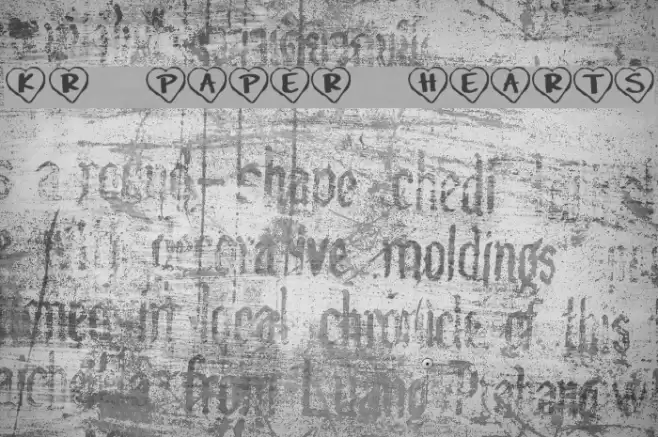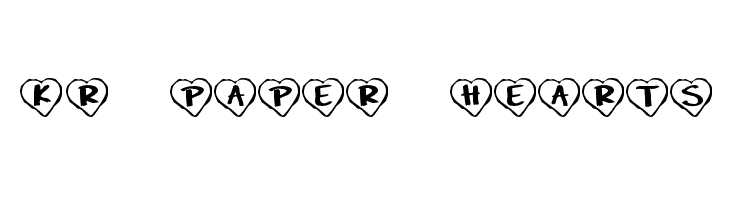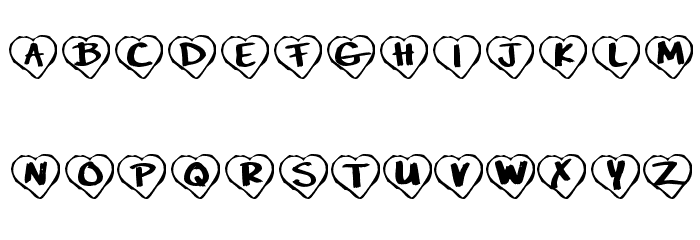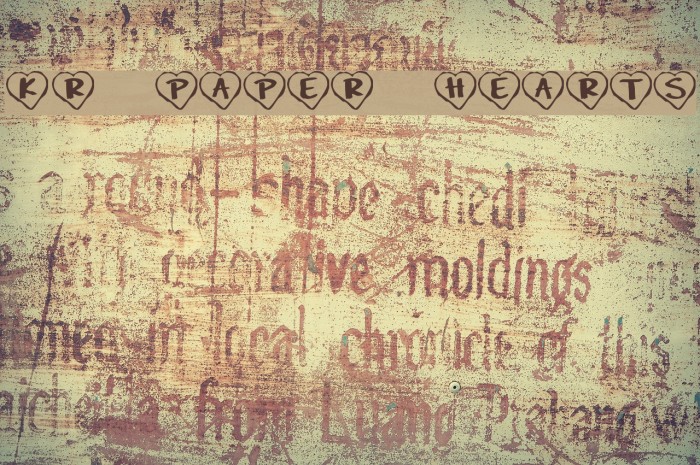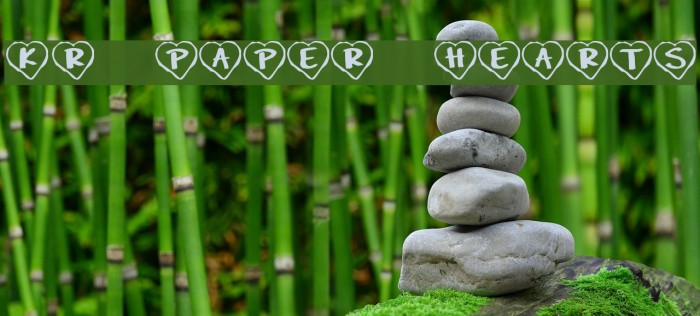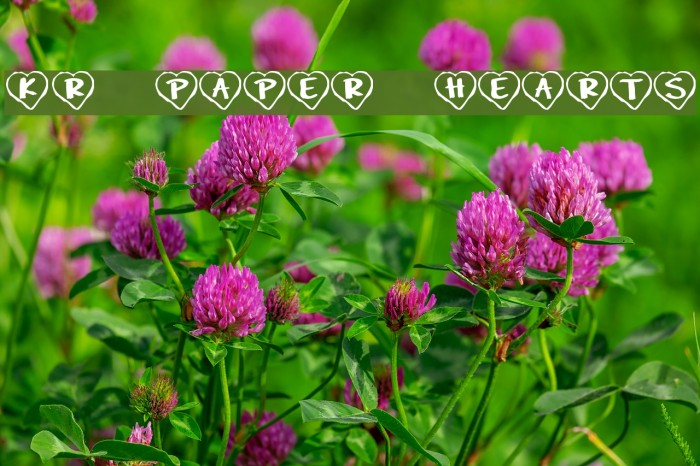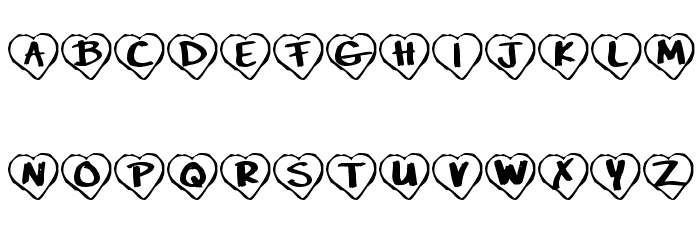
KR Paper Hearts Font
KR Paper Hearts Description
This playful and decorative font features each character encapsulated within a heart shape, creating a whimsical and romantic aesthetic. The letters are bold and slightly rounded, adding to the friendly and approachable feel. The heart outlines are consistent in size, providing a uniform appearance across all characters. This font is perfect for projects that require a touch of charm and affection, such as Valentine's Day cards, wedding invitations, or love-themed crafts. The unique design ensures that each letter stands out while maintaining a cohesive look.
A playful font with each letter inside a heart shape, perfect for romantic themes from Uncategorized fonts.
- Proposed Projects: Ideal for Valentine's Day cards, wedding invitations, love-themed crafts, and playful branding.
- Use Case: Headlines, Logos, Decorative text